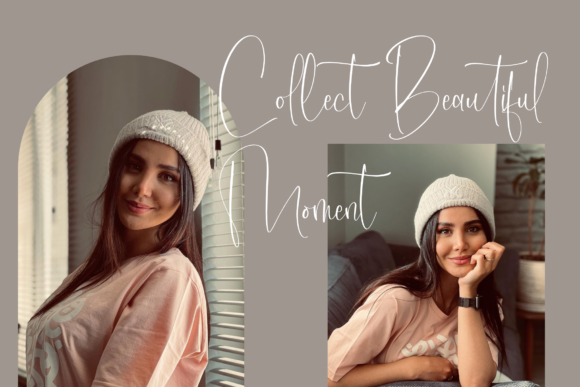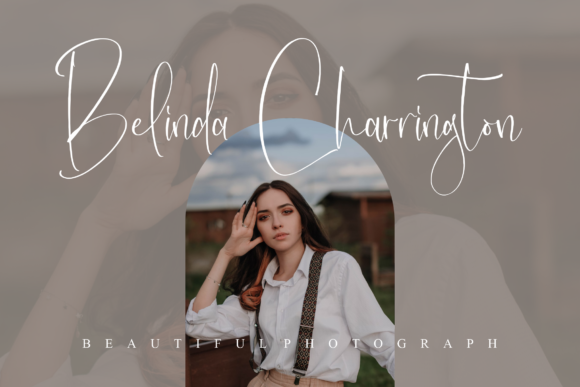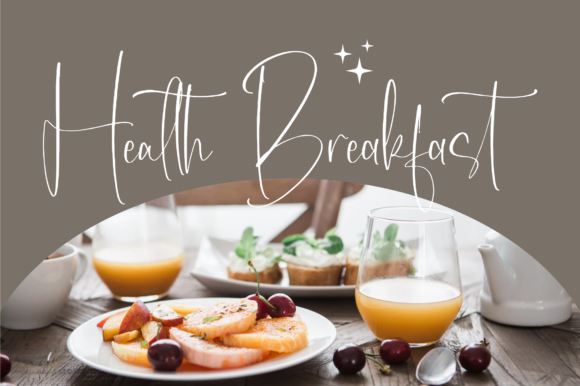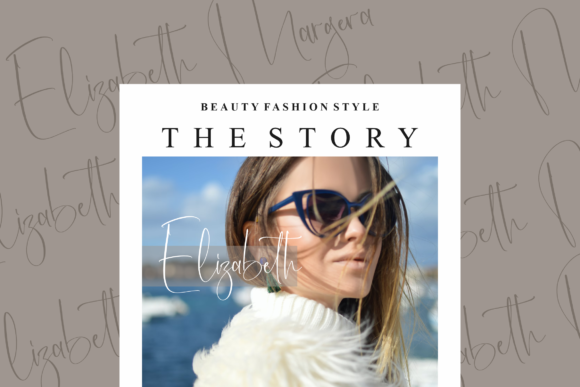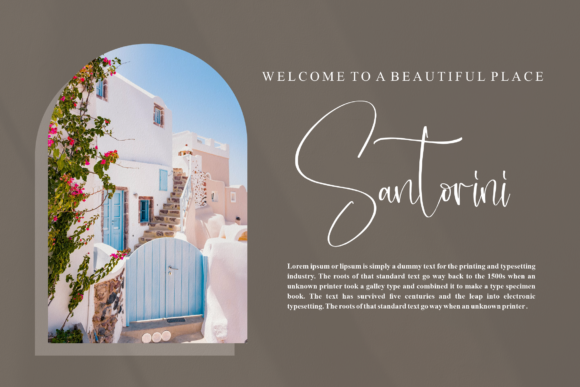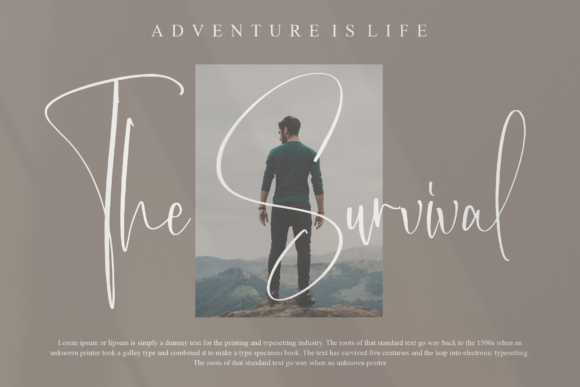
Introducing Harestalia Font: A Delicate Script Font for Your Creative Projects
Are you a designer or crafter looking for a beautiful script font to elevate your creative projects? Look no further than Harestalia Font. This delicate script font is perfect for a wide range of applications, from logos and branding projects to homeware designs, product packaging, and more.
What Makes Harestalia Font Special?
Harestalia Font is a stunning script font that is designed to add a touch of elegance and sophistication to any project. Its delicate lines and curves make it perfect for creating beautiful and eye-catching designs that will leave a lasting impression.
One of the standout features of Harestalia Font is its PUA (Private Use Area) encoding. This means that you can access all of the glyphs and swashes with ease, giving you complete creative control over your designs.
Harestalia Font is suitable for a wide range of projects, including:
- Logos and branding projects: Create a beautiful and memorable logo that will help your brand stand out.
- Homeware designs: Add a touch of elegance to your homeware designs, from stationery to ceramics.
- Product packaging: Make your product packaging stand out with beautiful and eye-catching designs.
- Mugs and quotes: Create stunning mugs and quotes that will make a great addition to any room.
- Posters and shopping bags: Create eye-catching posters and shopping bags that will grab attention.
- Watermark: Use Harestalia Font to create a beautiful watermark that will add a touch of elegance to your designs.
- Special events: Create stunning designs for special events, such as weddings, birthdays, and anniversaries.
Why Choose Harestalia Font?
There are many reasons why Harestalia Font is the perfect choice for your creative projects. Here are just a few:
- Unique and elegant design: Harestalia Font has a unique and elegant design that will add a touch of sophistication to any project.
- Highly versatile: Harestalia Font is suitable for a wide range of projects, from logos and branding projects to homeware designs and product packaging.
- PUA encoded: Harestalia Font is PUA encoded, making it easy to access all of the glyphs and swashes.
Tips for Using Harestalia Font
Here are a few tips for using Harestalia Font in your creative projects:
- Use it sparingly: Harestalia Font is a delicate script font, so it’s best to use it sparingly to avoid overwhelming your design.
- Pair it with other fonts: Harestalia Font pairs well with other fonts, so feel free to experiment with different combinations.
- Experiment with different sizes: Harestalia Font looks great in a variety of sizes, from small and delicate to large and bold.
Harestalia Font is a beautiful and elegant script font that is perfect for a wide range of creative projects. Its delicate lines and curves make it perfect for creating stunning designs that will leave a lasting impression. With its PUA encoding and ease of use, Harestalia Font is the perfect choice for designers and crafters who want to add a touch of sophistication to their designs.